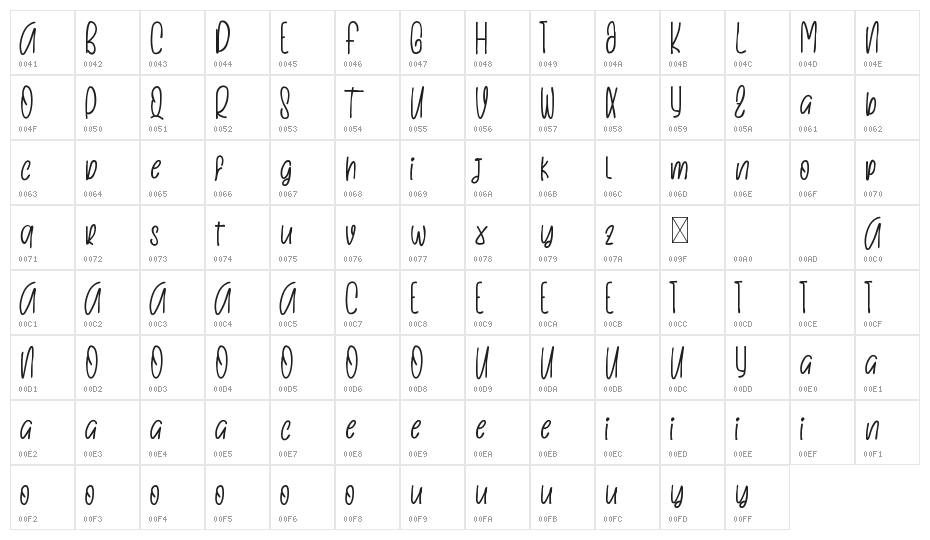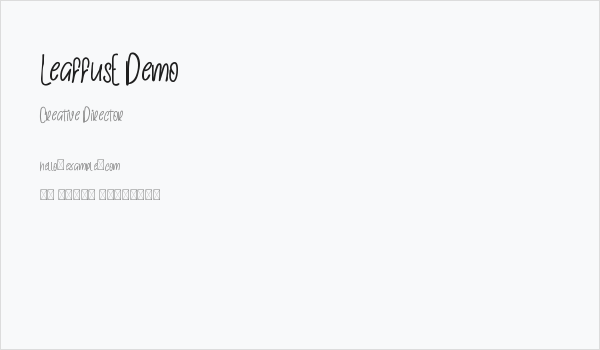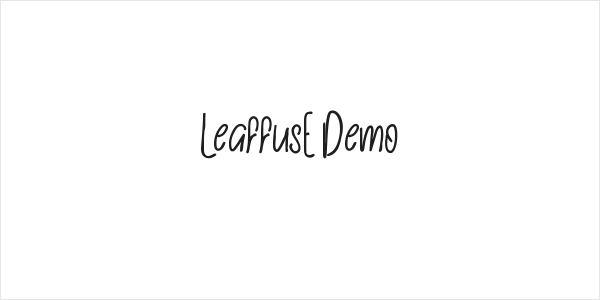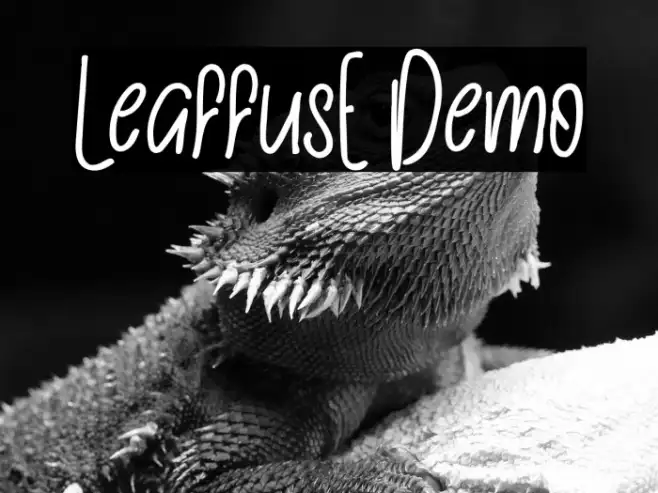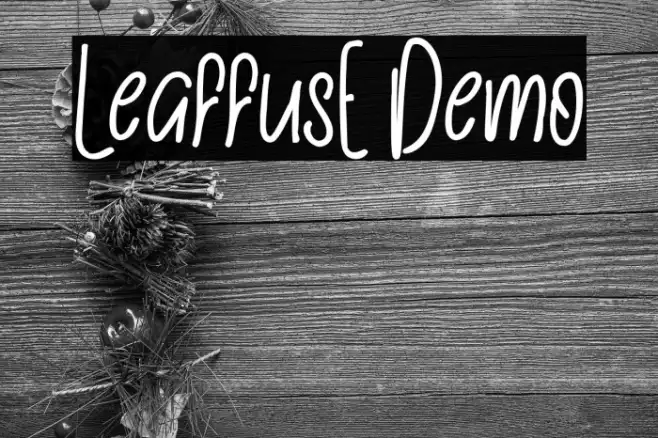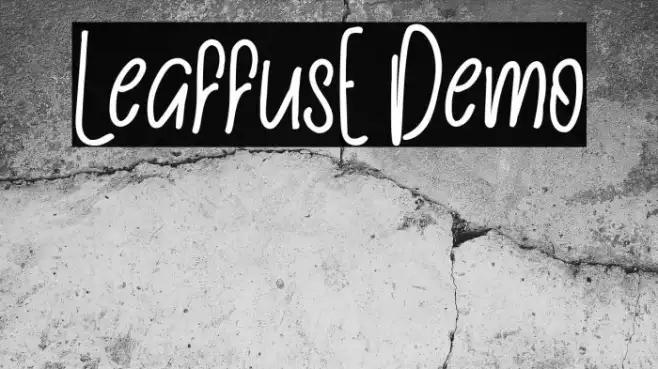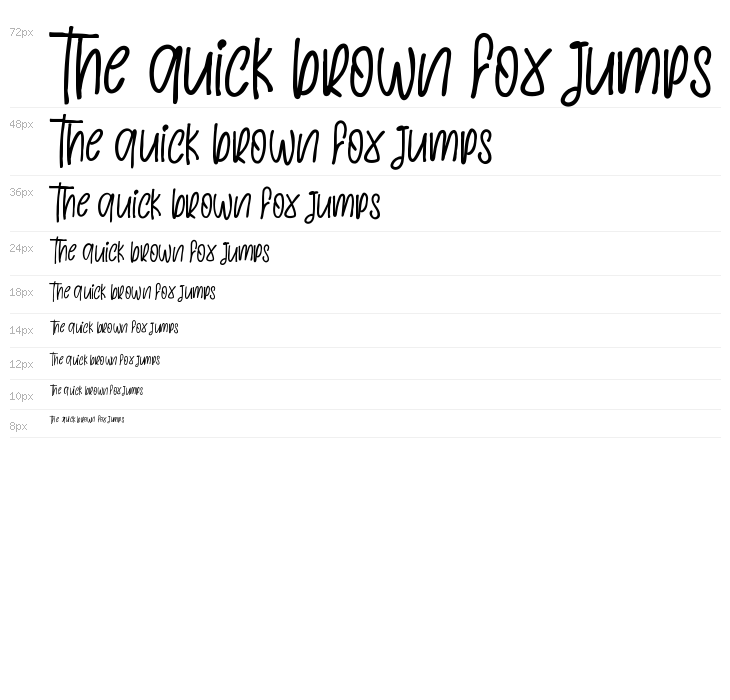
LeaffusE Demo Font
LeaffusE Demo Description
This font features a playful and whimsical design with elongated and slightly irregular letterforms. The strokes are smooth and rounded, giving it a friendly and approachable appearance. The uppercase and lowercase letters maintain a consistent style, with a notable height that adds to its unique character. The overall design is reminiscent of hand-drawn lettering, making it suitable for creative and informal applications. The font's distinctiveness lies in its tall, narrow structure, which can add a touch of elegance and fun to any project.
| Overall Style | Playful, Creative |
| Proposed Projects | Ideal for children's books, greeting cards, playful branding, and creative posters. |